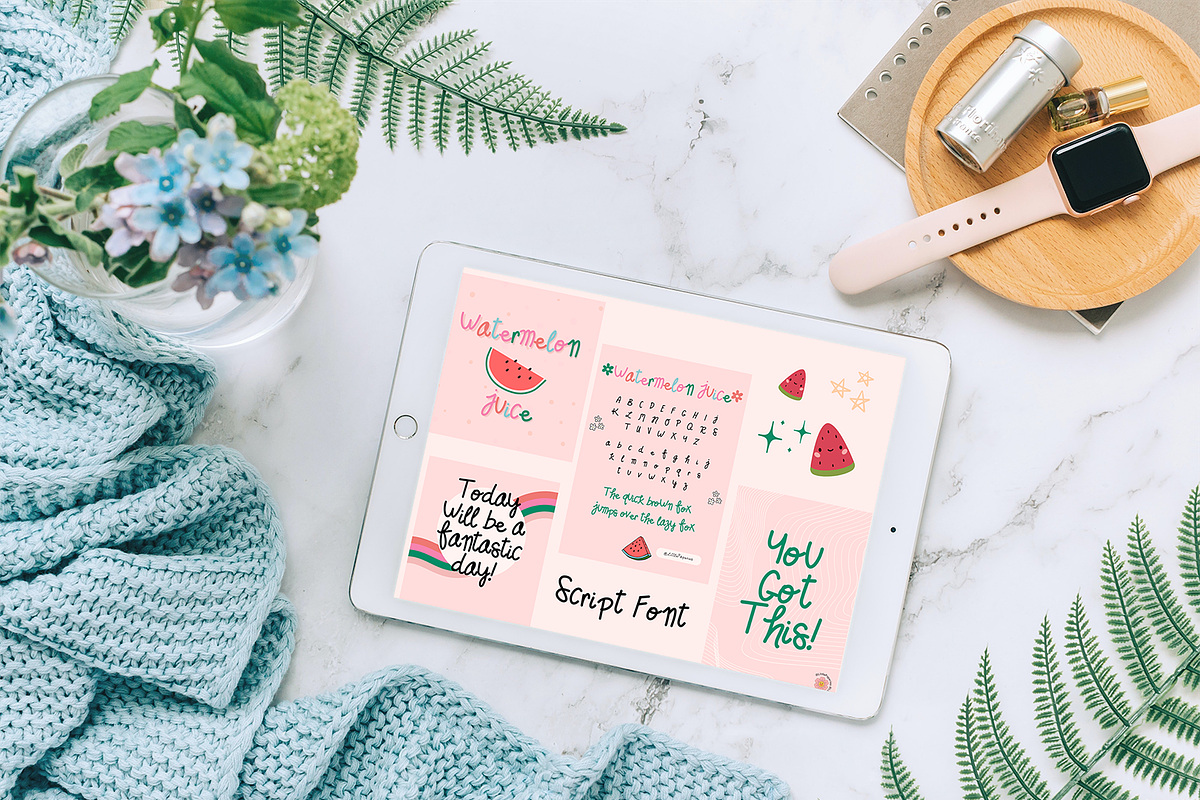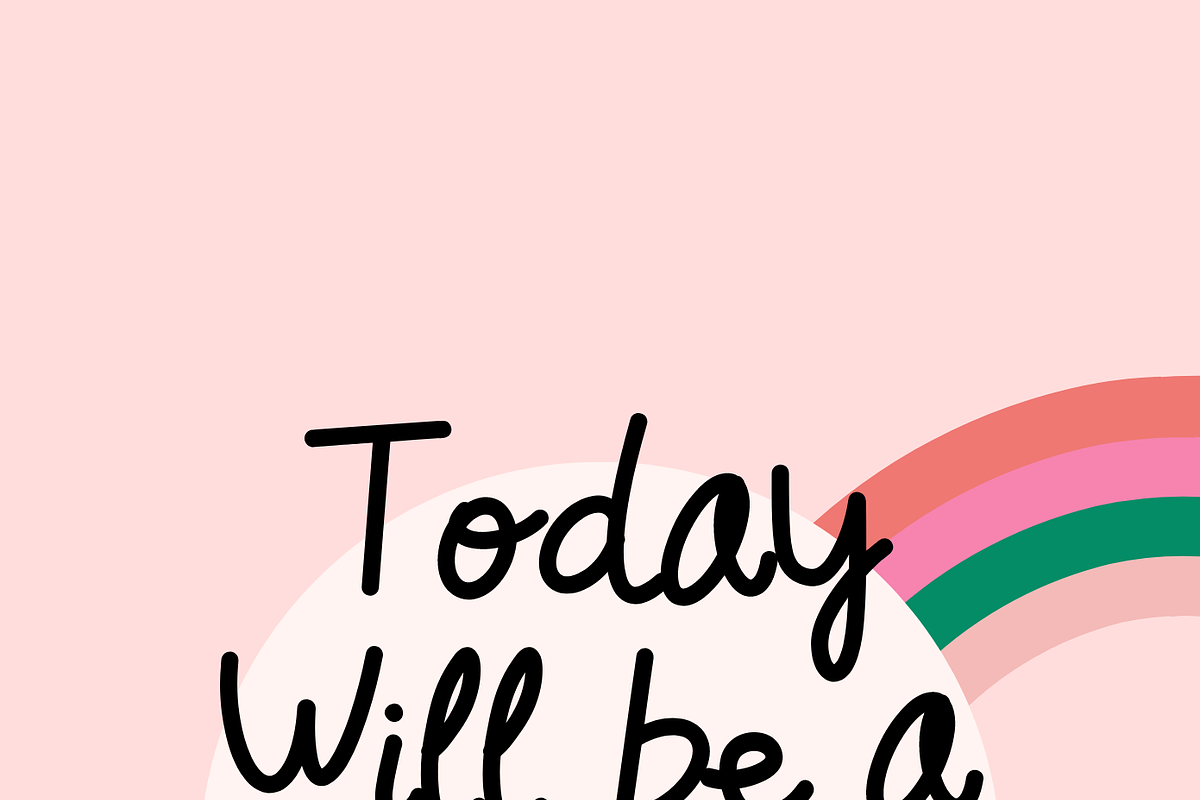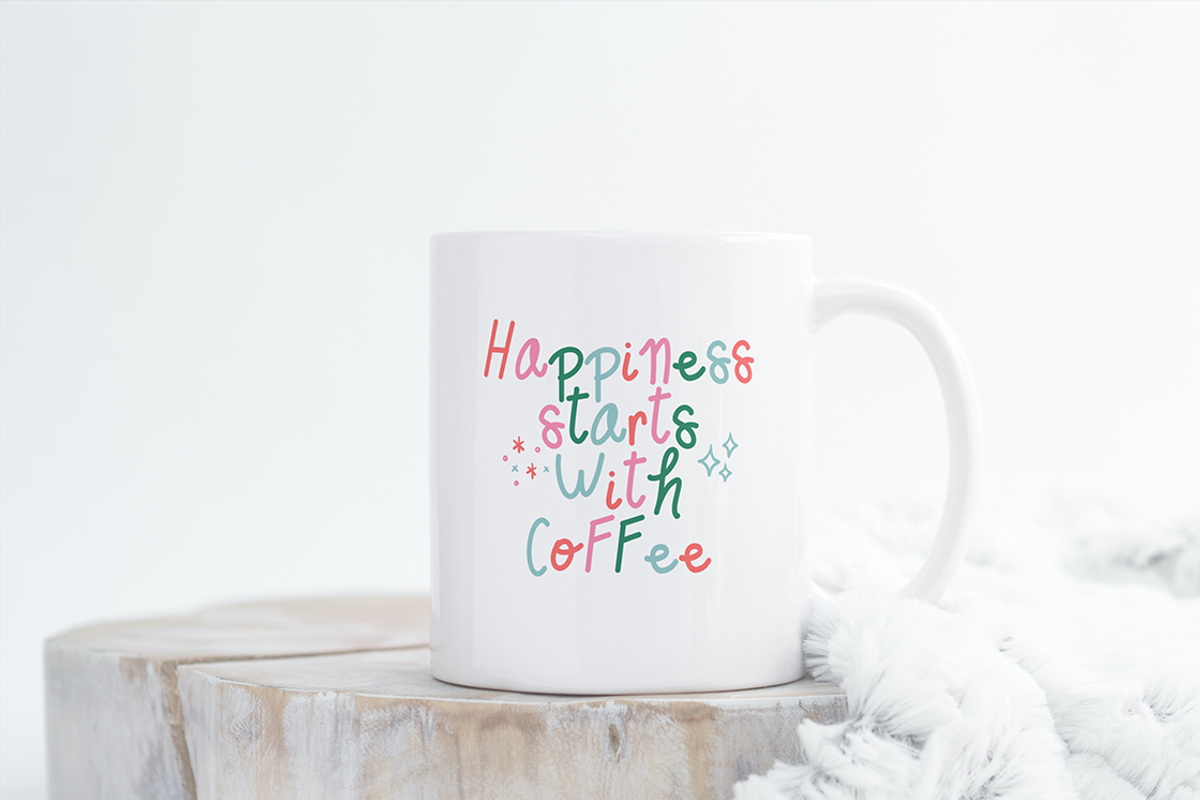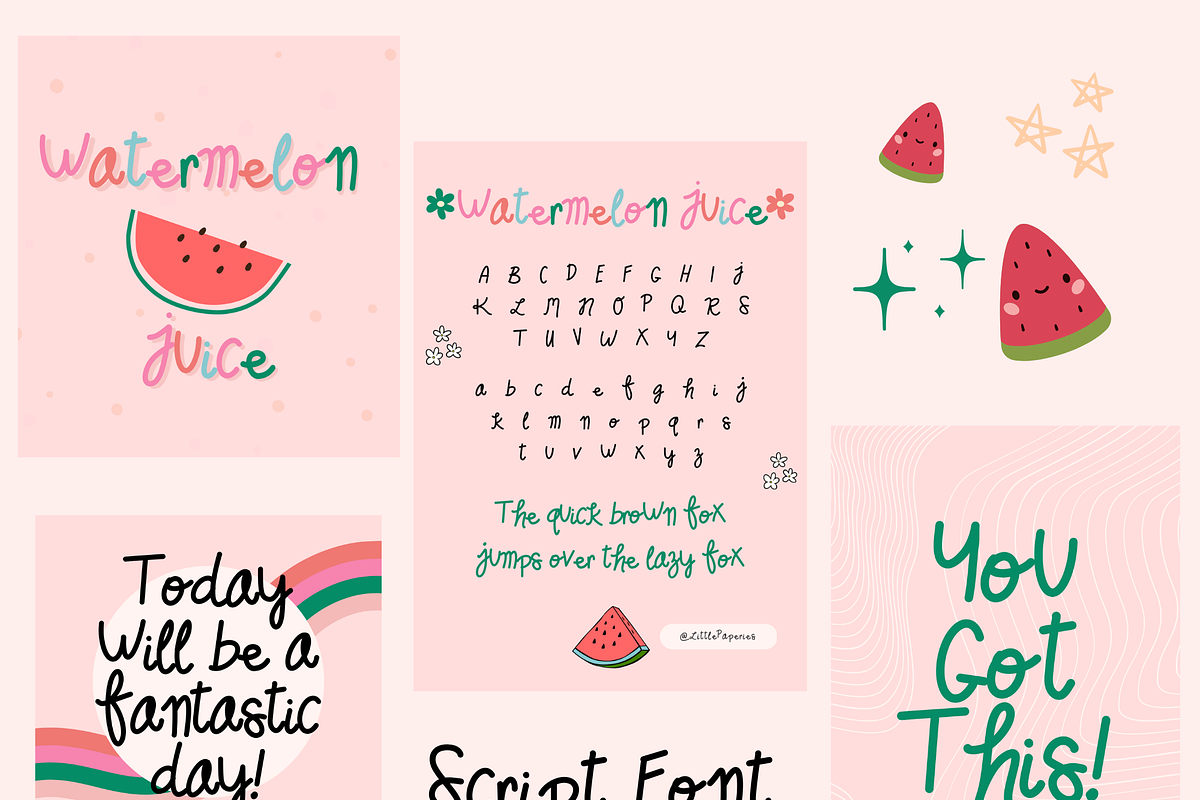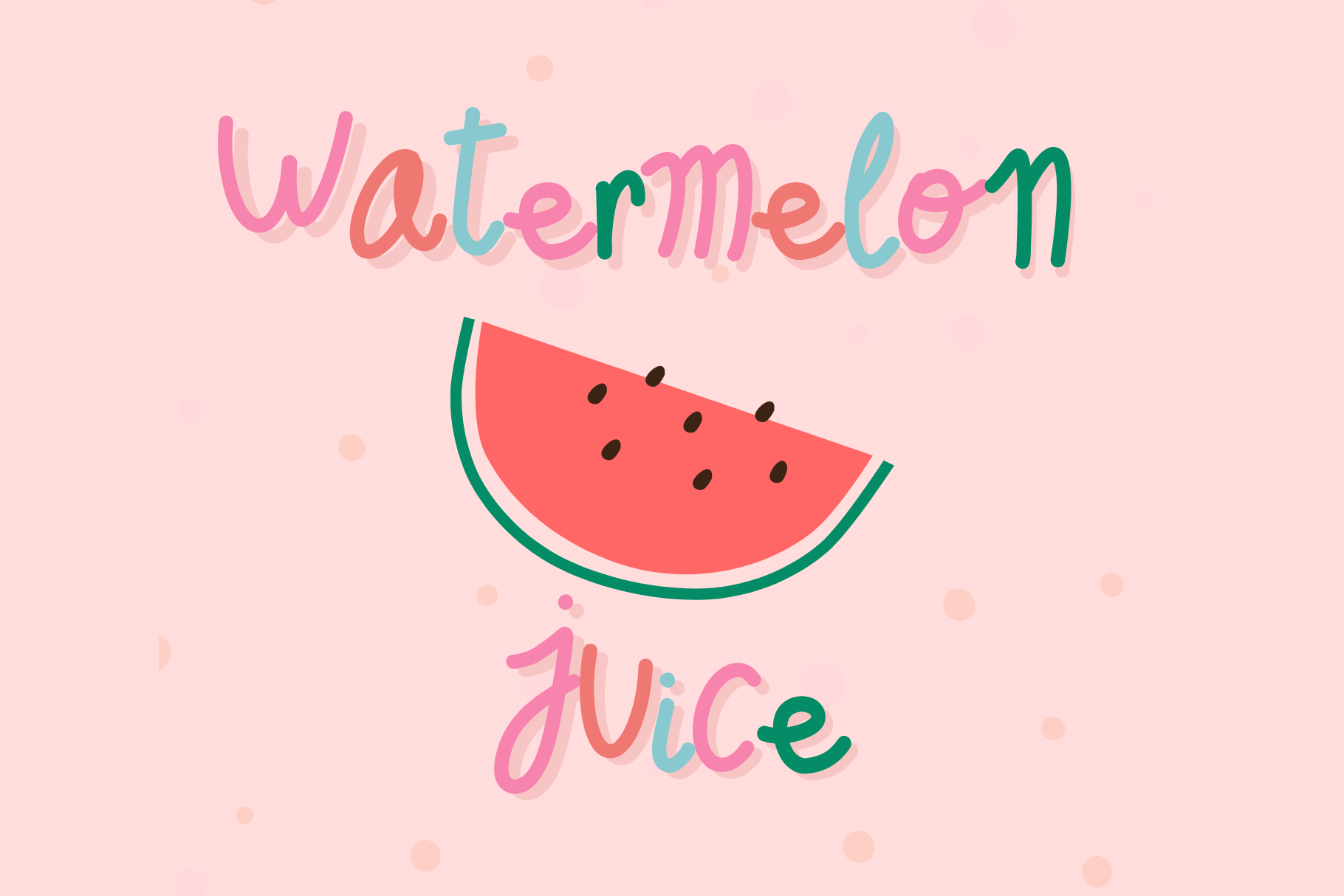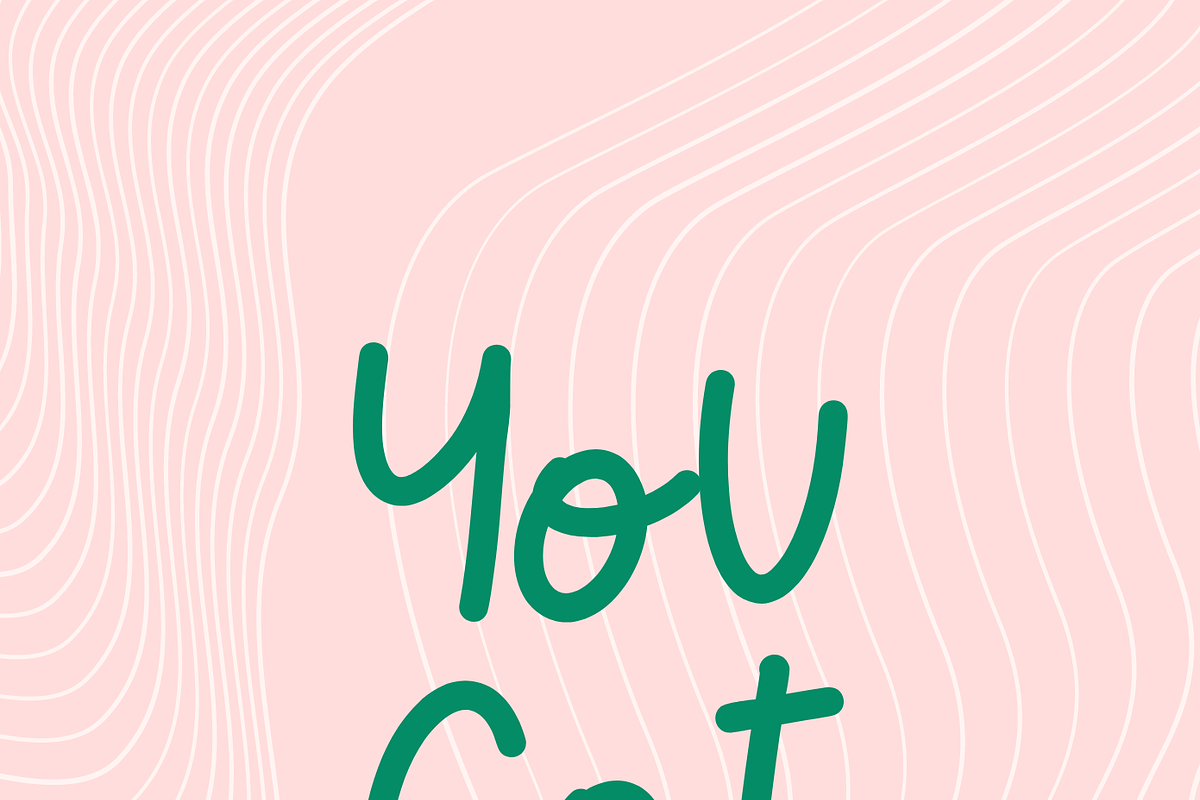
Watermelon Juice Script Font
We introduce to you the "Watermelon Juice" font! A cute spotty handwritten font made just for you and all of your future fave products.
Perfect for one of a kind invitations, stickers, business cards, logos, blog headers, apparel design ..And so much more, the possibilities are endless!